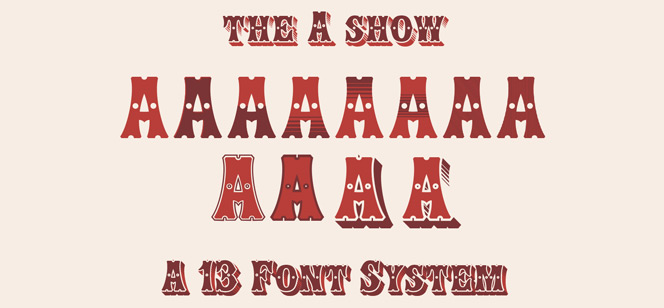
Show font
Show font is a multilayered typeface family inspired by an old Victorian era wood type called Concave. The idea behind this project is to digitize the original type, giving it a certain chromatic look. The Show font bears all the characteristics of it Victorian predecessor – the applying of ornaments, extensive use of shadows and outlines and hint of a careless craftsmanship – overall a reminiscent of odd, and sometimes very imaginative process of creation of woodblock letters. One distinctive feature of the original font was also the lack of a lowercase. In the modern Show font they are replaced with small caps, which can be used either independently or in conjunction with the caps. The typeface family employs a large set of characters that support almost all European languages. It also includes full punctuation and monetary symbols.
Show typeface family is published by Huy!Fonts and is a brainchild of the Juanjo Lopez and Ines Atienza – two Spanish graphic designers, renowned for their fondness of everything connected to letterpress printing and calligraphy. Other examples of their work are: Adoquin font, Ultramarina font, etc